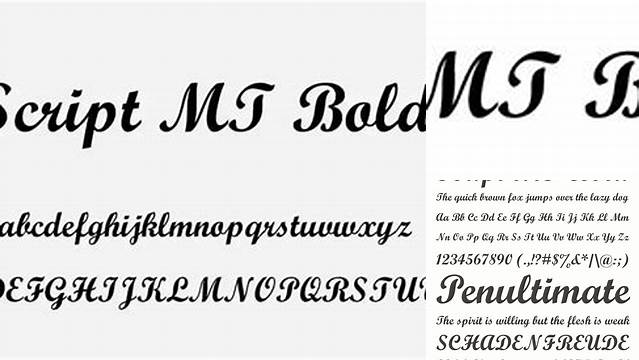
Fonts Script MT Bold: A Deep Dive
Hey everyone! Let's dive headfirst into the world of Fonts Script MT Bold. This classic typeface has been a go-to for designers and anyone who appreciates a touch of elegance and flair. We're going to explore its history, its uses, and why it continues to be a favorite. Buckle up, because we're about to get font-tastic!
The Origins and History of Fonts Script MT Bold
Fonts Script MT Bold boasts a rich history, tracing its roots back to the world of calligraphy and the graceful strokes of handwriting. Initially crafted by Monotype, this typeface was designed to emulate the fluid beauty of a calligrapher's pen. The 'MT' in its name signifies its creator, Monotype, a company known for its significant contributions to the world of typography. The 'Bold' designation indicates the weight or thickness of the strokes, making it a bolder and more commanding version of the original Script MT. This added weight ensures visibility and impact, making it ideal for headlines, titles, and any situation where the message needs to stand out. Over time, Fonts Script MT Bold has evolved, yet it has remained faithful to its original design principles. It has seen use in various contexts, including branding, advertising, and even personal stationery. The enduring popularity of Fonts Script MT Bold is a testament to its timeless appeal and its ability to capture the essence of elegance and sophistication. Guys, the story behind this font is quite interesting. It's not just a collection of glyphs; it's a carefully crafted design that has captivated generations. Understanding its origins helps us appreciate the artistry involved in creating such a versatile font. It’s like appreciating a fine painting: you need to know the artist and their intentions to fully get it. So, next time you see Fonts Script MT Bold, you'll have a deeper appreciation for its history.
Exploring the Early Influences of Fonts Script MT Bold
The early influences behind Fonts Script MT Bold are fascinating and offer a peek into the world that shaped its creation. Think about the calligraphic traditions of different cultures, such as the elegant script of Western Europe and the graceful strokes of East Asian calligraphy. These artistic forms influenced the design. The movement toward standardization in printing and the development of early typefaces played a crucial role. Designers were constantly trying to find ways to mimic the beauty of hand-drawn letters. This desire was the driving force behind Fonts Script MT Bold. It sought to merge the artistry of calligraphy with the practicality of typography. The designers at Monotype, like all the great type designers of the era, were inspired by the work of master calligraphers. This resulted in a font that captured the delicate lines and variations that define hand lettering. Fonts Script MT Bold is more than just a font; it's a reflection of art and technology coming together. The designers wanted to provide an option that was both visually appealing and easy to use. The influence of other script fonts also contributed to the final design. They carefully studied other popular styles and incorporated the most successful aspects. The result was a font that felt familiar yet unique, and easily adaptable to many applications. They were thinking of the future. The success of Fonts Script MT Bold lies in its ability to balance tradition and innovation. It's a font that continues to inspire and be used in countless projects.
The Evolution of Fonts Script MT Bold Through the Years
Over the years, Fonts Script MT Bold has gone through various stages of development. It has adapted to new technologies and design trends. The original design, created for metal type printing, has been refined for use in digital environments. Designers have made slight adjustments to ensure optimal readability on screens. The introduction of digital font formats was a major milestone. This made Fonts Script MT Bold even more accessible. It could be used on computers and across different platforms. The font has been tweaked and improved over time, keeping its elegance and readability. Designers also considered the needs of different languages. They added or modified characters to support a wider range of writing systems. This made the font more versatile for global use. Another key aspect is its adaptation to modern design trends. The creators took into account what was popular at the time. They maintained the core characteristics of the font while adding new elements. This evolution has helped Fonts Script MT Bold remain relevant in a constantly changing design landscape. The font has become a symbol of tradition and modernity. It is still a favorite for many designers. Fonts Script MT Bold has not only survived but thrived. It has become an indispensable tool for creative professionals around the world. The ongoing evolution of Fonts Script MT Bold shows its commitment to adapting and meeting the needs of its users.
Distinctive Characteristics of Fonts Script MT Bold
Alright, let's talk about what makes Fonts Script MT Bold so special. This font is characterized by its elegant curves, flowing strokes, and the overall sense of sophistication it conveys. The bold weight adds a powerful presence, making it ideal for drawing attention to your text. One of its key features is the way the characters connect. This creates a seamless, handwritten feel. This is in contrast to fonts where each letter stands alone. The design of Fonts Script MT Bold pays close attention to detail. The contrast between the thick and thin strokes gives it a dynamic look. This dynamic is visually captivating. The font also has a distinctive slant. This adds to the sense of movement and artistry. This is the mark of an authentic handwritten style. The use of ligatures, where certain letter combinations are joined together, also adds to the font's unique personality. This attention to detail makes Fonts Script MT Bold stand out from the crowd. This allows the font to look natural and appealing. The overall effect is a font that is both beautiful and highly readable. This combination of characteristics makes Fonts Script MT Bold perfect for a wide range of design projects. The typeface has a certain charm that is hard to find elsewhere. It truly is a unique font. It’s like the Mona Lisa of fonts! It’s got that timeless quality.
Comparing Fonts Script MT Bold to Other Script Fonts
When you compare Fonts Script MT Bold with other script fonts, its unique qualities become even more evident. Unlike many other script fonts, Fonts Script MT Bold has a very strong presence. This is due to its bold weight. Other script fonts may be more delicate or ornate. The font combines sophistication with readability. It balances the need for flair with practical considerations. Compared to fonts that imitate a more casual handwriting style, Fonts Script MT Bold stands out for its refined elegance. The connected letters and flowing curves give it a sense of continuity. In contrast, some script fonts feature more isolated letterforms. The font offers a specific level of formality. It helps create a specific tone and mood in a design. Fonts Script MT Bold has a classic appeal, unlike some fonts that follow trends. This has helped it stay relevant for many years. The overall feel of Fonts Script MT Bold is more structured. Other scripts, by comparison, may feel looser. The differences may seem subtle, but the impact is noticeable. These make Fonts Script MT Bold an excellent choice when you want a touch of sophistication. Comparing the fonts helps you to recognize its value. It's like comparing different wines – you understand what makes one better than another. By understanding the differences, designers and users can make better choices.
The Technical Aspects of Fonts Script MT Bold's Design
Now, let's geek out a little bit about the technical aspects of Fonts Script MT Bold. The design of this font is a remarkable feat of engineering and art. The curves and strokes are meticulously crafted. The designers paid close attention to the angles and widths of each character. This ensures that the font is both beautiful and legible. The designers carefully controlled the weight and thickness of the strokes. This is a delicate balance to strike, as it affects both the appearance and readability of the font. The spacing between the letters, known as kerning, is also important. The designers ensured that there was consistency and that each character fit harmoniously. Designers used various techniques to make sure Fonts Script MT Bold maintained the elegance of handwriting while being practical. This includes the use of ligatures. They connect certain letter combinations to create a flowing appearance. The font is usually vector-based. This allows it to be scaled to any size without losing quality. This is essential for different applications. The designers would have also taken into account the font's appearance on various devices. This required careful testing and adjustment. Fonts Script MT Bold is a perfect example of the seamless blending of technology and artistry. The technical aspects are crucial for creating a font that is both visually appealing and functional. The attention to detail is the secret to its success. It's like the secret recipe of a great chef! The technical skill is just as important as the artistic vision.
The Versatility of Fonts Script MT Bold in Design
Let's explore the amazing versatility of Fonts Script MT Bold in the design world. This font is a true chameleon, adapting to a variety of creative projects. It adds a touch of class, whether you're designing a logo, a wedding invitation, or a website header. Fonts Script MT Bold shines when it comes to branding. Businesses wanting to convey a sense of sophistication or elegance can rely on this font. The bold weight helps the font draw attention. Fonts Script MT Bold is also great for creating visually appealing headlines and titles. Its style provides impact and personality. It's like giving your words a superpower! The font is ideal for creating elegant invitations or announcements. It adds a personal and handcrafted touch to the text. Fonts Script MT Bold can also enhance digital designs. It is highly readable. The font has a remarkable impact. The font can also be combined with other fonts. It can add a touch of sophistication to your project. The versatility of Fonts Script MT Bold is a testament to its timeless design. This font continues to inspire designers to create wonderful designs.
Utilizing Fonts Script MT Bold in Branding and Logos
Fonts Script MT Bold is a superb choice for branding and logos. The font's distinctive and stylish appearance helps create a strong brand identity. The font conveys sophistication and creativity. This is especially useful for companies that want to make a premium brand image. Fonts Script MT Bold can be used to create elegant logos. The font's script style gives it an appeal. The bold weight adds a touch of impact. This font can be used in business cards, letterheads, and other branding materials. Fonts Script MT Bold helps the brand look professional. When choosing the font for your logo, it is important to remember a few things. It is important to ensure that the font works in different sizes and contexts. The font should be easily recognizable. Also, the font should complement your brand. It's like finding the perfect outfit for your company! The versatility of Fonts Script MT Bold makes it an excellent font for both traditional and modern brands. When used effectively, Fonts Script MT Bold can convey elegance and make a strong visual statement. The impact of a well-designed logo should not be underestimated. The font can help make your brand iconic.
Fonts Script MT Bold for Web Design and Digital Projects
Fonts Script MT Bold is an excellent option for web design and digital projects. Its unique style helps make your website stand out. The font can be used to create titles and headings. The bold weight helps to ensure readability. The style creates visual interest. The font is an excellent choice for creating headlines. The script style creates a sense of beauty. This is excellent for branding and creating a premium feel. Fonts Script MT Bold can also be incorporated into other design elements. It's like adding a touch of magic to your website! When using this font, it is crucial to consider its readability. The font must be easy to read at any size. It is a good idea to use this font sparingly. Using too much of it can make your website look cluttered. You can combine Fonts Script MT Bold with other fonts. The combination can create a visually interesting and harmonious design. The font can also be used in the creation of social media graphics. The font can help you create content that is eye-catching. The overall style of Fonts Script MT Bold makes it a useful tool in the toolkit of a designer. It adds a unique flavor and helps create a memorable digital experience. It is a versatile and beautiful font.
Conclusion: Embracing the Timeless Elegance of Fonts Script MT Bold
Fonts Script MT Bold is a timeless classic for a reason. Its elegant and sophisticated design has captivated designers and users for decades. We've explored its history, characteristics, and versatility, and hopefully, you're now equipped with the knowledge to use it effectively in your own projects. So go forth and create some beautiful designs with Fonts Script MT Bold! Remember to use it thoughtfully. It's like a secret ingredient in your recipe for design success! Embrace its unique style and let your creativity shine. Happy designing, everyone!